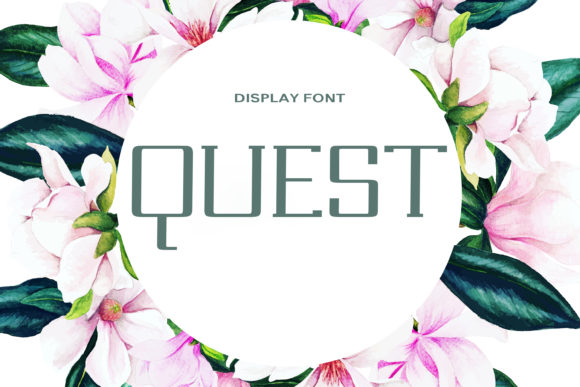
Introducing Quest Font - The Ultimate Choice for a Standout Modern CV!
Unleash the power of a captivating resume with Quest Font, the perfect blend of boldness and innovation. This display font is not just a collection of letters; it's a gateway to making a lasting impression.
With its sharp angles and distinctive curves, Quest Font commands attention, ensuring your CV stands out from the crowd. Its unique character set adds a touch of intrigue, hinting at the creativity and forward-thinking nature within you.
Each stroke of Quest Font is meticulously crafted, exuding confidence and professionalism. Its versatility extends beyond resumes, making it an ideal choice for headers, logos, posters, and more. The possibilities are endless!
Step into the realm of modern design with Quest Font. Let your ideas take flight and witness the transformation of your words into a captivating masterpiece. Embrace the future of CV design with a font that speaks volumes about your ambition and individuality.